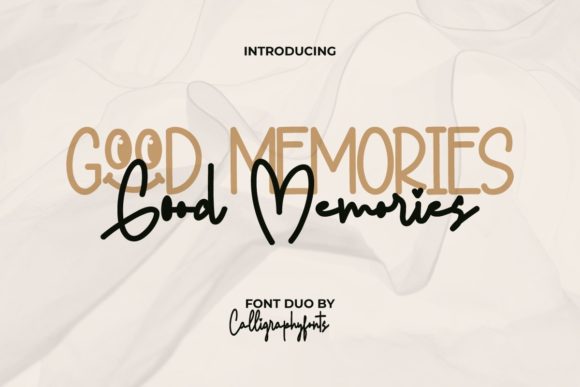
Indulge in the enchanting world of Good Memories Font, a captivating script font family that adds a touch of nostalgia and elegance to your creative endeavors. This irresistible font duo, meticulously crafted by CalligraphyFonts, comprises two distinct styles: the graceful Regular Handwriting and the alluring Signature Script.
Unleash your creativity with Good Memories Font, the ultimate font for capturing life's precious moments. This font duo will effortlessly elevate your logos and branding, imbuing them with a timeless charm. Whether you're designing wedding invitations that exude romance or creating product designs that evoke a sense of history, Good Memories Font is your trusty companion.
Experience the beauty of handwritten elegance with the Regular Handwriting style, perfect for adding a personal touch to your projects. Its flowing lines and delicate curves mimic the natural beauty of penmanship, evoking a sense of authenticity and artistry.
For a touch of sophistication, embrace the Signature Script style, reminiscent of handwritten signatures that convey authority and prestige. This style adds an air of formality to your designs, making it ideal for certificates, diplomas, and other official documents.
With its remarkable versatility, Good Memories Font transcends the boundaries of traditional script fonts. Its captivating style seamlessly adapts to a wide range of design aesthetics, from classic and vintage to modern and contemporary. Whether you're designing marketing materials, social media graphics, or website layouts, Good Memories Font effortlessly elevates your designs.